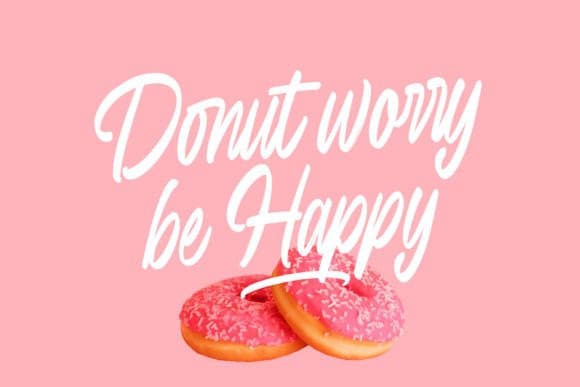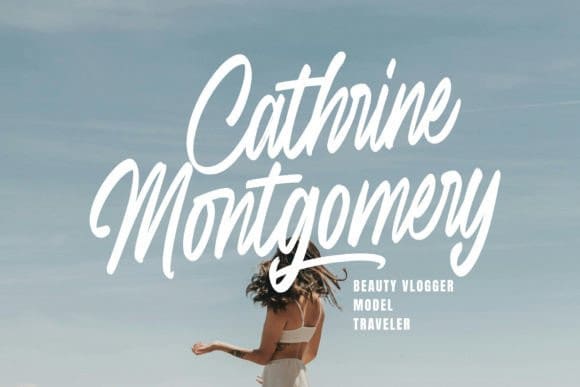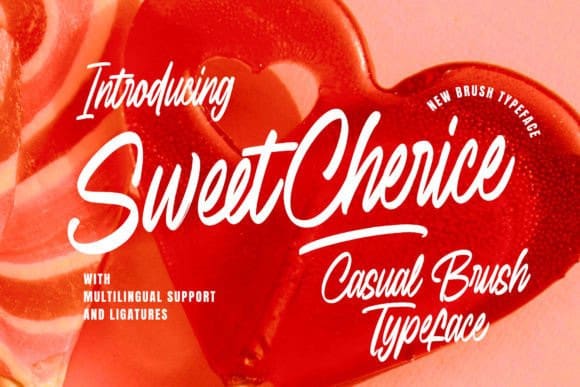
Sweet Cherice Font
Sweet Cherice Font, a brush typeface infused with lively and stimulating energy. Hand-crafted with bold strokes and kinetic alphabetic forms, this font echoes the authenticity and allure of an actual brush correspondence. Ideal for designs in need of a laid-back ambience with a friendly aura, SweetCherice bestows an element of delightful uniqueness to each masterpiece it graces. Step into an artistic world where charisma and casual charm are simply a font choice away with Sweet Cherice.